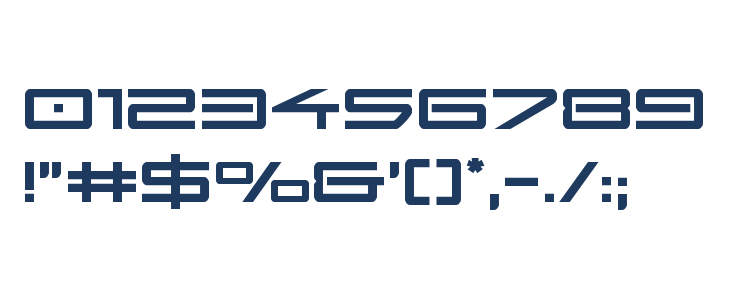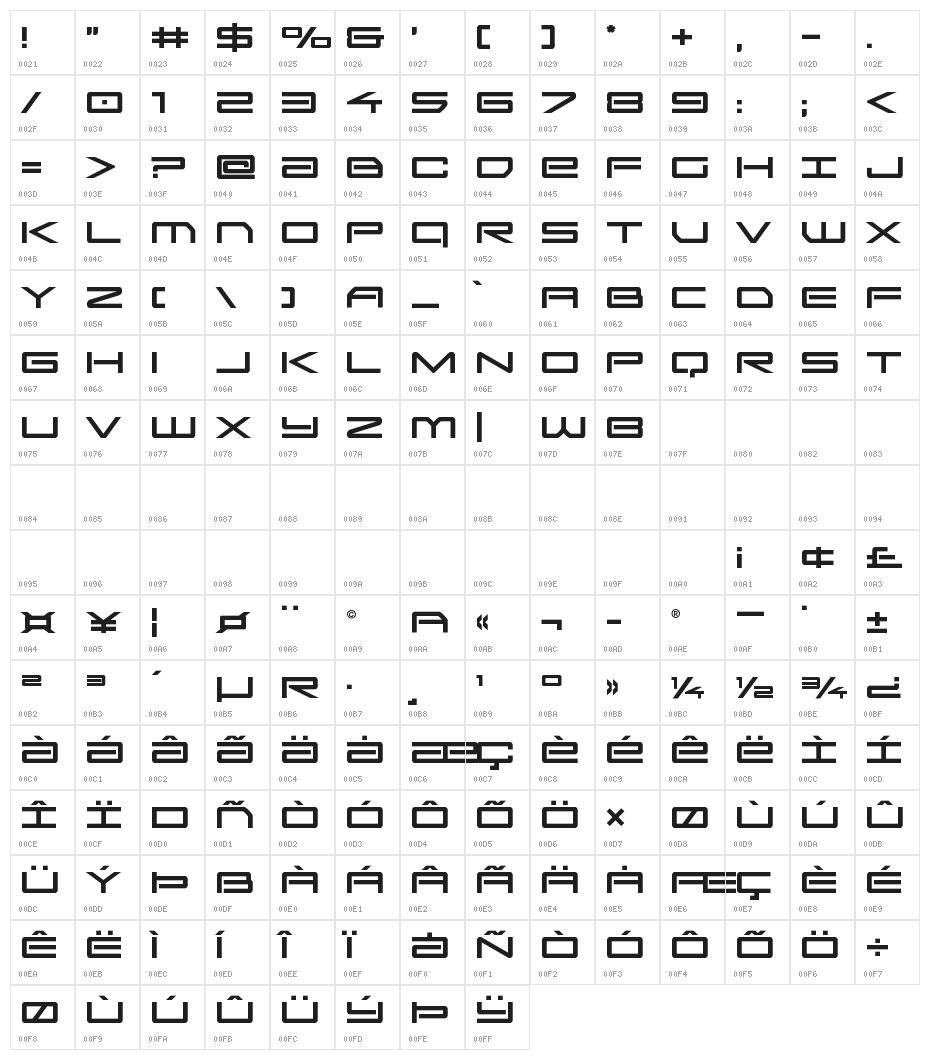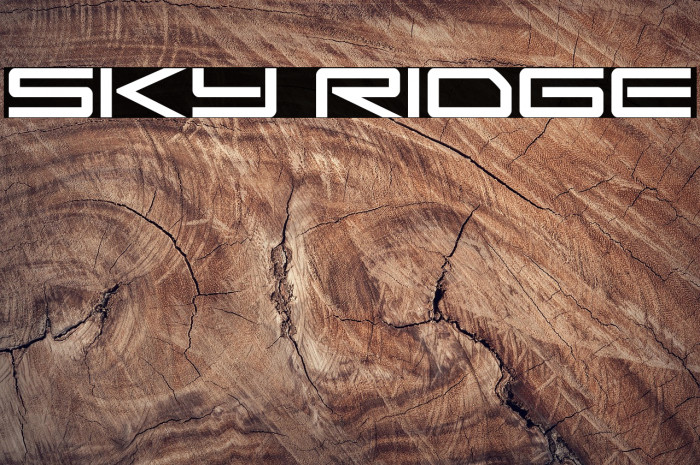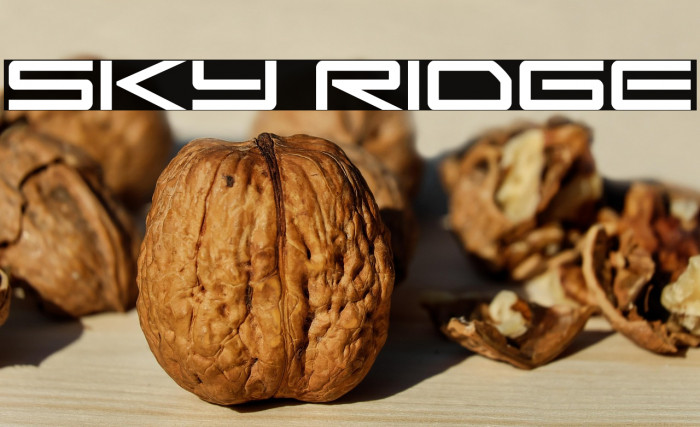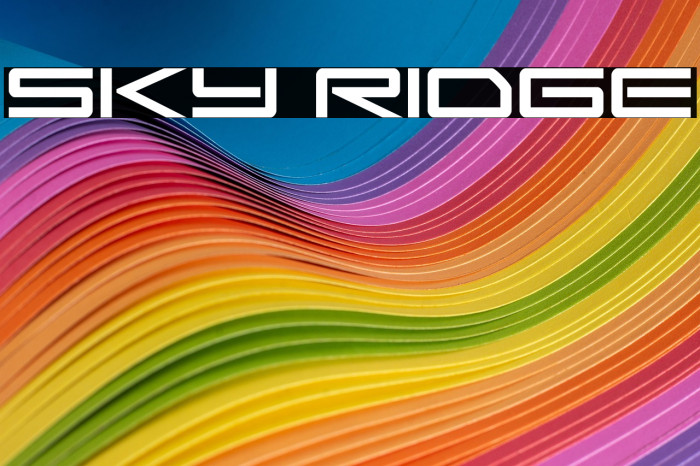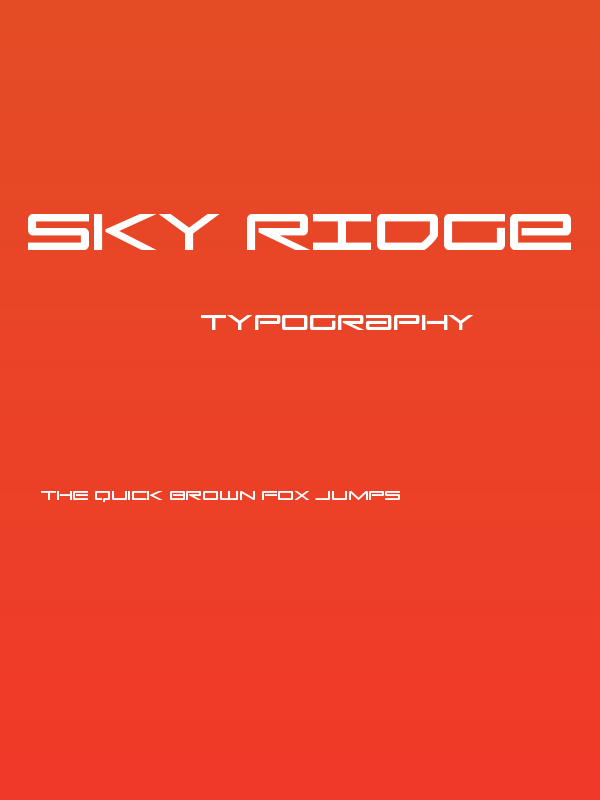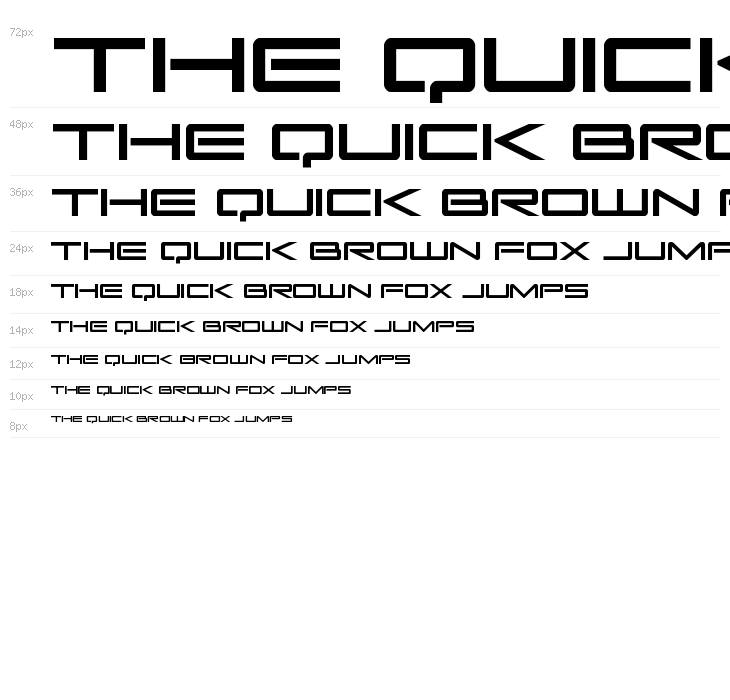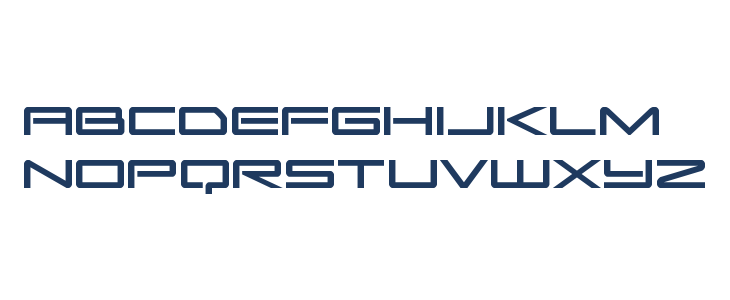
Sky Ridge Font
Sky Ridge Description
This font features a futuristic and geometric design with a strong emphasis on angular lines and sharp edges. The characters are constructed with a consistent stroke width, giving it a uniform and structured appearance. The uppercase and lowercase letters maintain a cohesive style, with distinct, bold shapes that are easy to read. Numbers and special characters follow the same design principles, ensuring a seamless integration across different text elements. The font's modern aesthetic makes it suitable for projects that require a contemporary and tech-savvy look.
| Use Case | Logos, Headlines, Posters |
| Proposed Projects | Ideal for technology branding, sci-fi themed designs, video game interfaces, and modern advertising. |